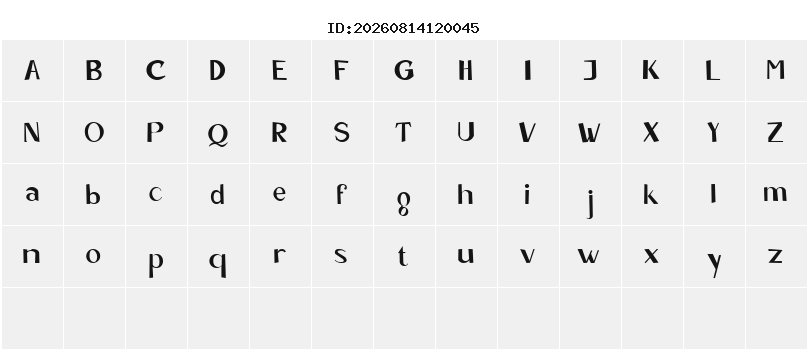
Strumbelflumble Preview
About Strumbelflumble.ttf
Strumbelflumble.ttf is a modern, elegant sans-serif font designed for ultimate readability and visual harmony. Perfect for branding, headlines, web design, and print materials.